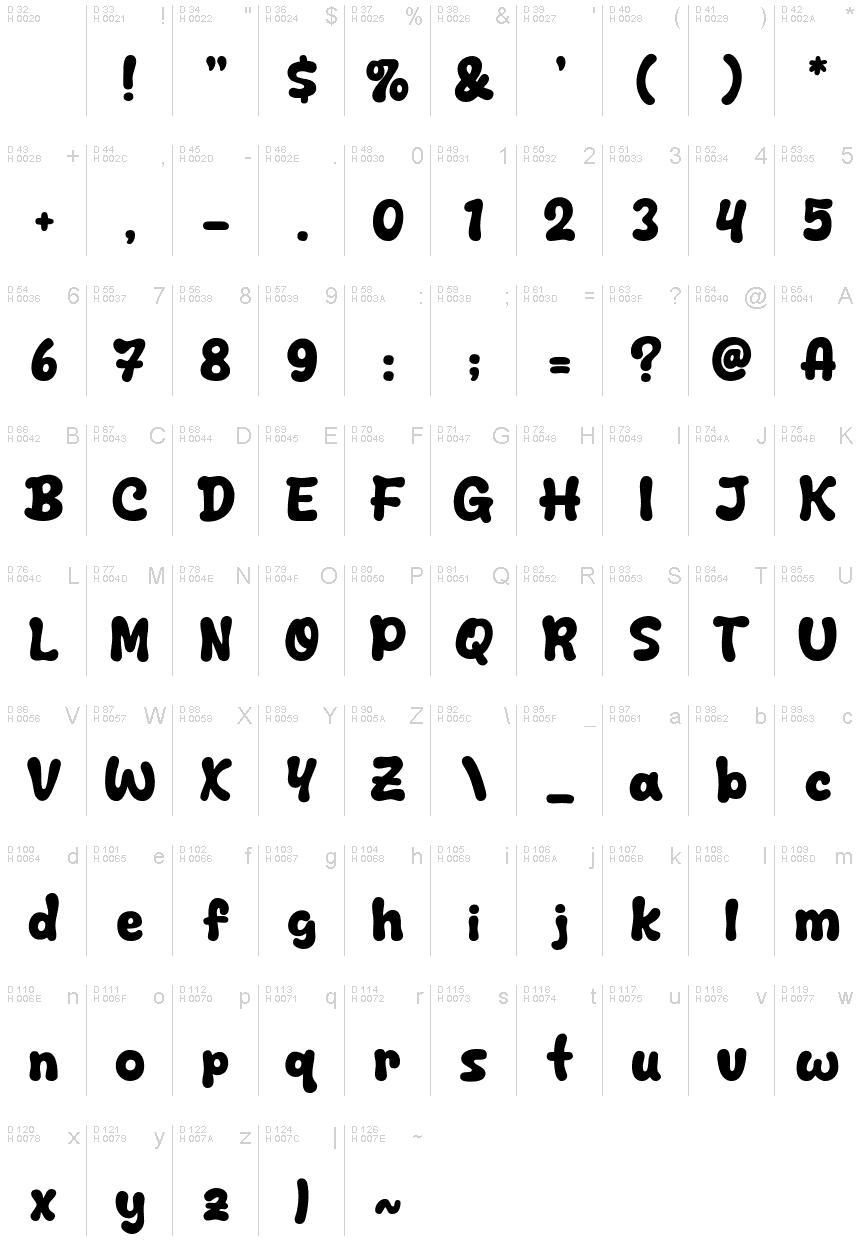
Blue Style
Unleash the joyful spirit of typography with Blue Style, a bold display font that dances with cartoonish delight. Crafted by the imaginative Khurasan, this typeface is a celebration of creativity and playfulness. Its robust, animated curves and friendly appearance make it an ideal choice for projects that aim to inspire smiles and capture attention.
Whether you're designing an eye-catching logo, a vibrant poster, or adding life to your digital content, Blue Style injects exuberance into every word. Its distinctive cartoon style ensures your message isn't just seen—it's experienced. Dive into the dynamic world of Blue Style Font and let your designs burst with personality!